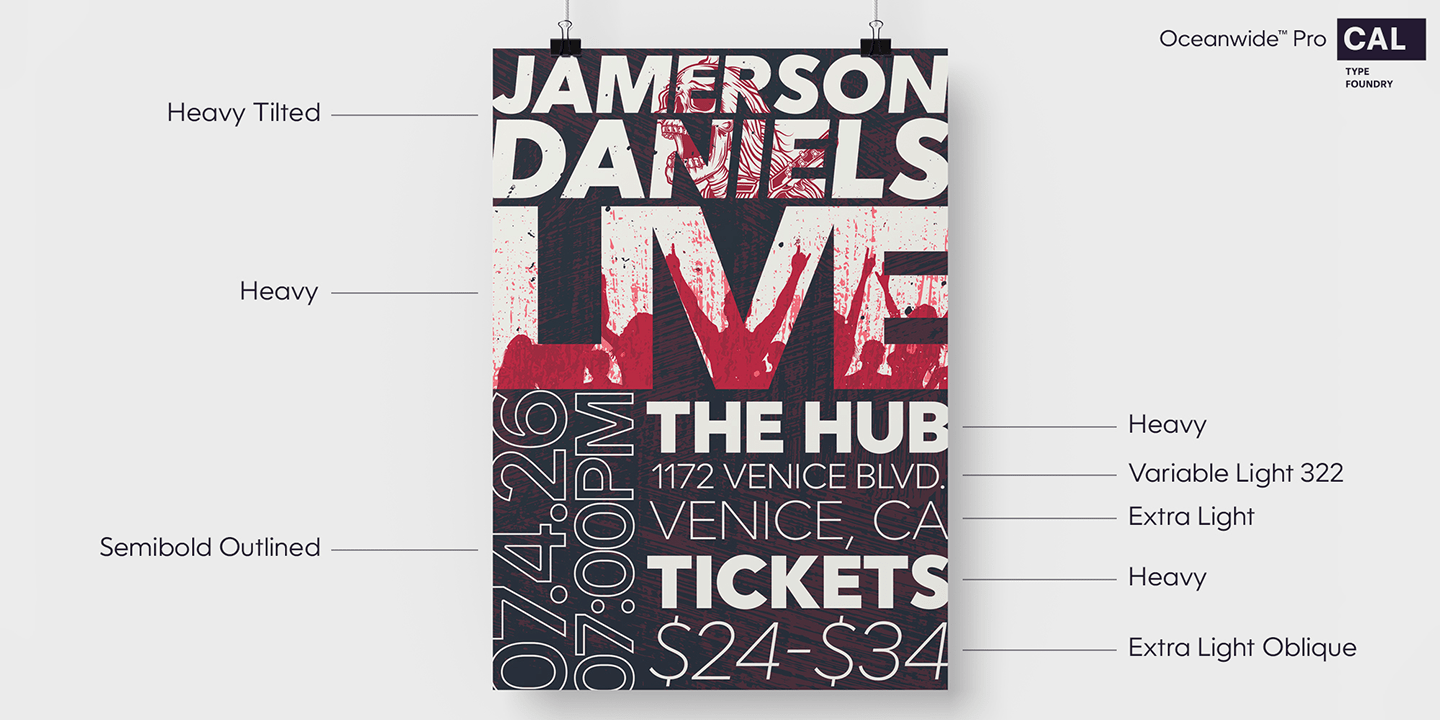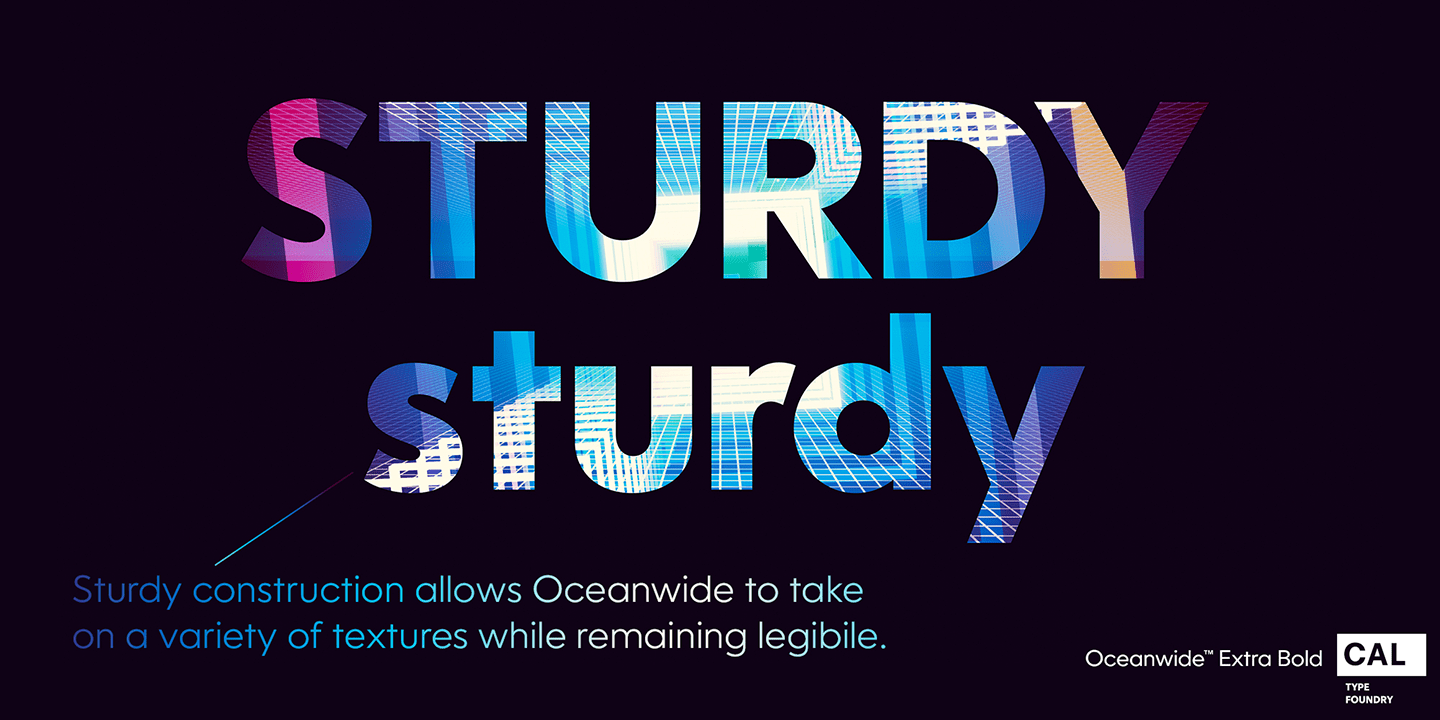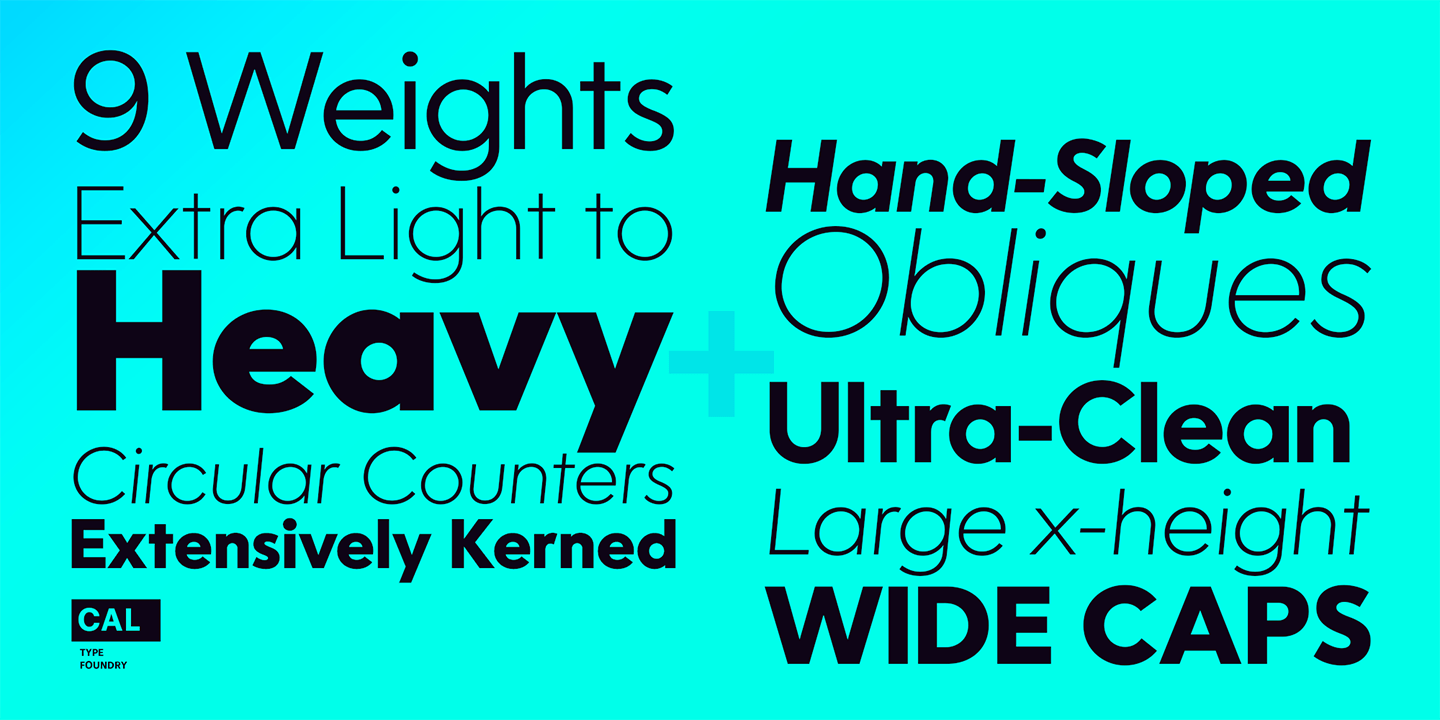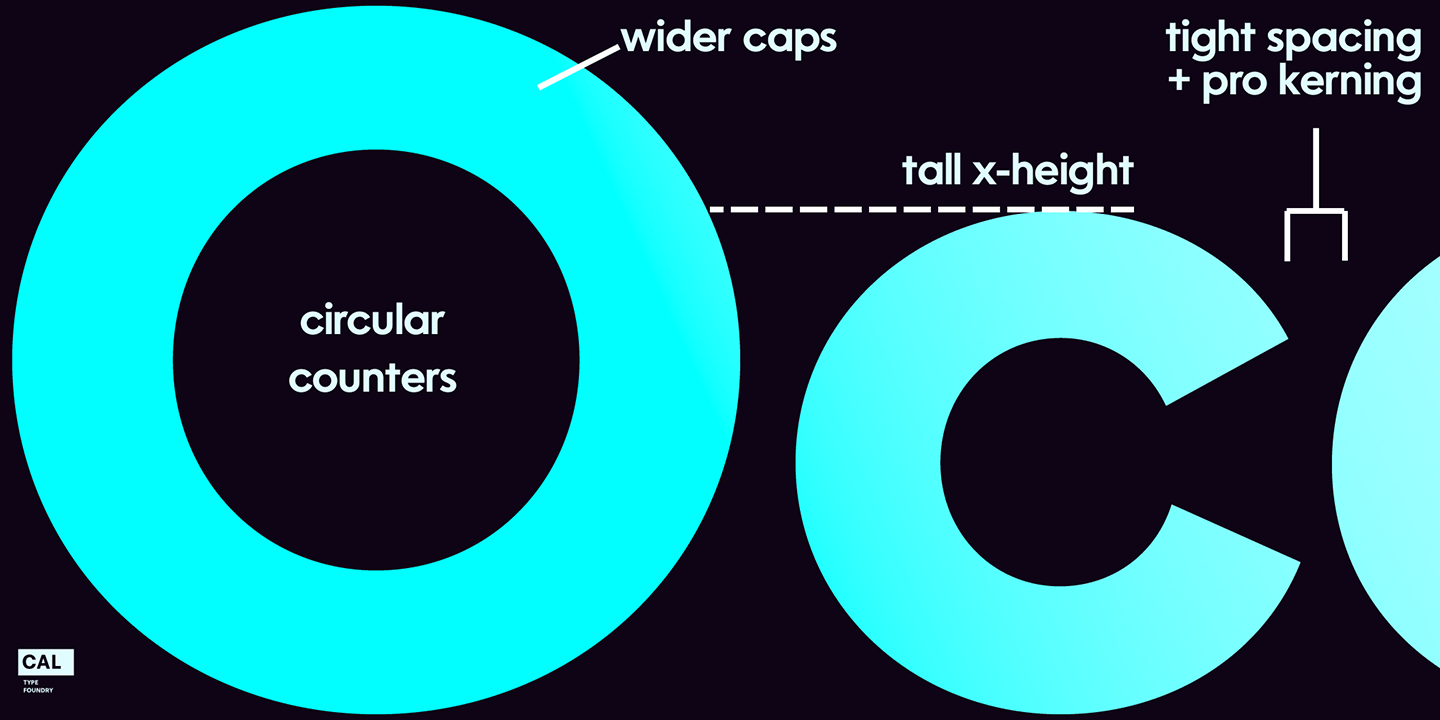
A font perfect for not just one, but many projects! Introducing Oceanwide Pro, a sans that loves to be used in just about any situation! Designed with ultra clean lines and versatility in mind, Oceanwide wants to be your new favorite sans! Oceanwide's…